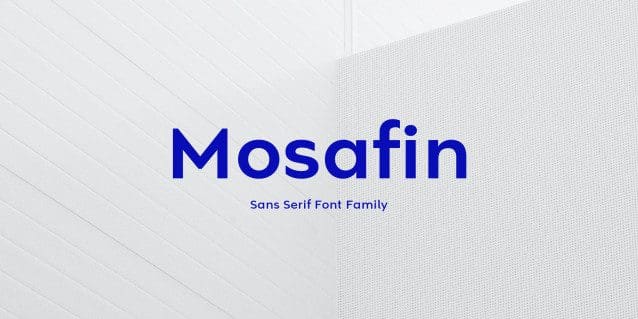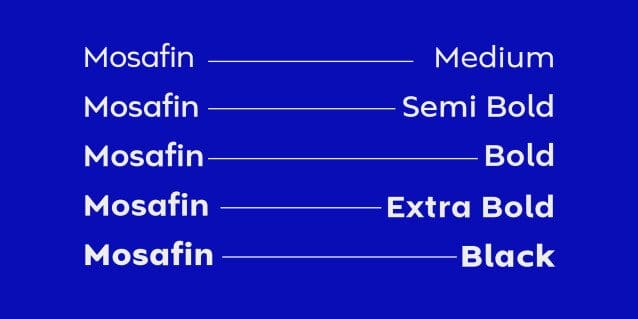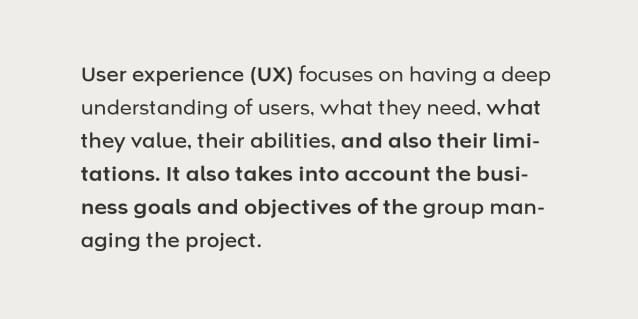
Mosafin Sans Font Family
Mosafin Sans Font Family is a sans-serif typeface that has a modern and elegant design. This font has a very consistent and proportional letterform, and has clean and firm lines, making it easy to read and very suitable for various graphic design purposes.
Made with the latest technology and excellent design, the Mosafin font has distinctive characteristics, such as very geometric letter shapes, with sharp angles and clear, thin lines. This font can be used in various media, such as poster designs, logos, business cards, banners, and various other design purposes.
This font also has a proportional font size ratio, so it’s easy to read at any size